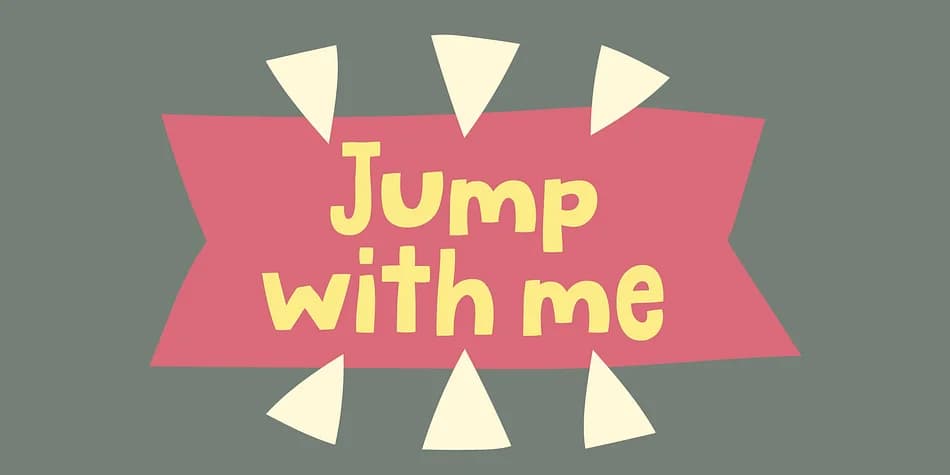
This typeface radiates joy and movement the moment you see it. Jump with me is a playful decorative font created by designer Bogstav that injects infectious energy into any project the instant you begin typing. What sets it apart is the careful balance between its animated, bouncy character and surprising legibility, despite all that personality embedded into every single letter and curve.
Originally sketched and drawn by hand before being meticulously refined letter by letter, Jump with me features smooth, flowing letterforms with an elevated x-height that creates natural, built-in rhythm throughout any composition. There's no need to fiddle with alternates or layering tricks to achieve the movement effect. Simply type your text and the font's inherent bounce handles the visual work for you. This makes it an obvious choice for children's picture book covers, birthday party invitation suites, candy shop window signage, and playful merchandise label designs. The hand-drawn quality remains visible in every curve and angle, yet the careful refinement ensures everything stays readable even at smaller sizes or when printed.
Pair Jump with me with a neutral, clean sans-serif for body copy and supporting text to keep overall layouts balanced and approachable. You'll find this bouncy typeface on Creative Fabrica, ready to add personality and movement to your next creative project.
Jump with me Font is a decorative font that shines as a display or heading face. Pair it with a clean sans-serif or serif font for body text β the contrast creates a clear hierarchy while the two styles stay balanced and easy to read.
Jump with me Font
by Bogstav